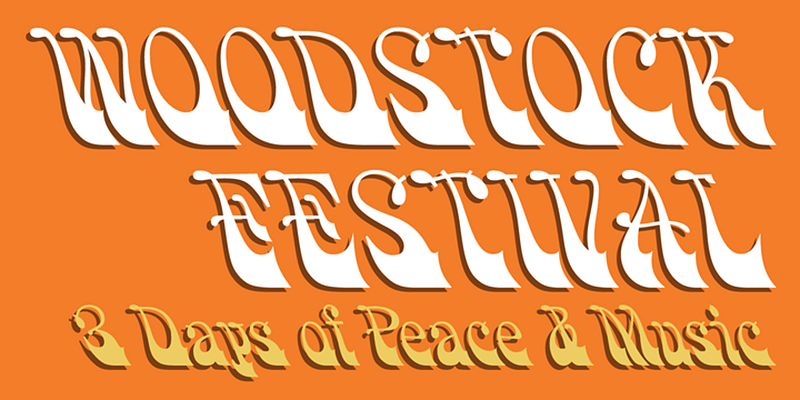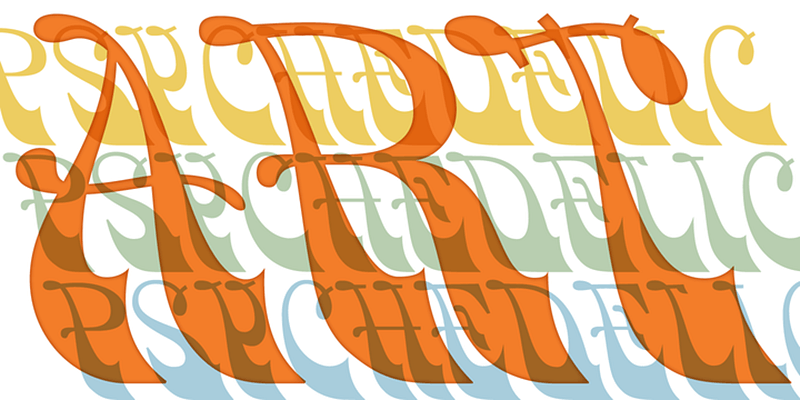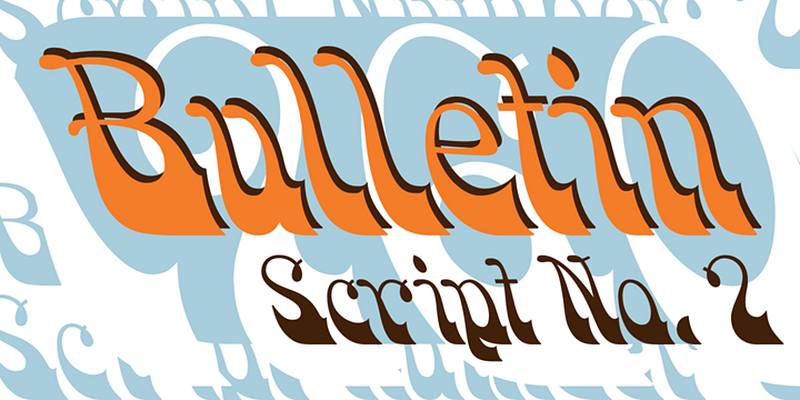
HWT Bulletin is a script style offered by several American wood type manufacturers in the late 19th century. It may be one of the most iconic styles of the 60s Psychedelic Victorian revival era.
Hamilton Wood Type Collection, established in 2012, is a joint venture between P22 Type Foundry and the Hamilton Wood Type & Printing Museum. The founding goal was to safeguard a typographic era and make classic wood type designs available as digital fonts for modern audiences. This historical collection of serif revivals, sans reinterpretations, decorative embellishments, script reclamations, and original chromatic designs is stunningly relevant and usable for any imaginative design practice.